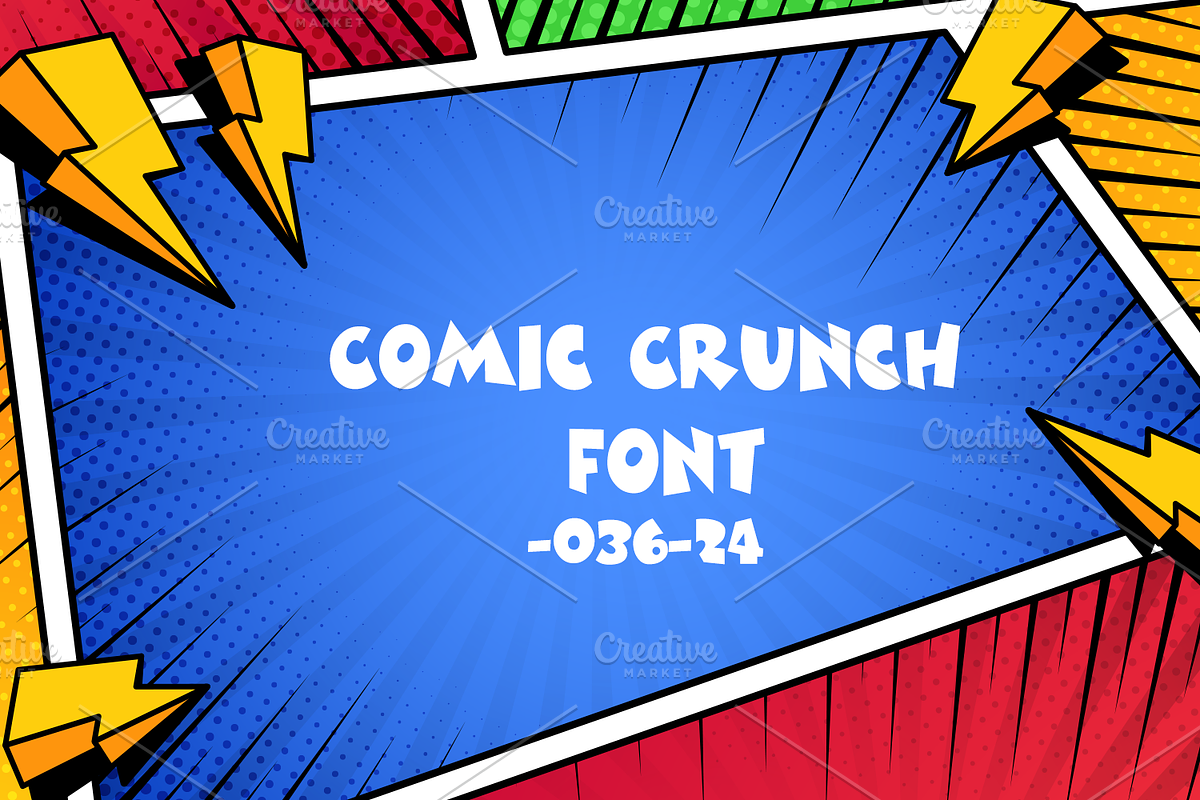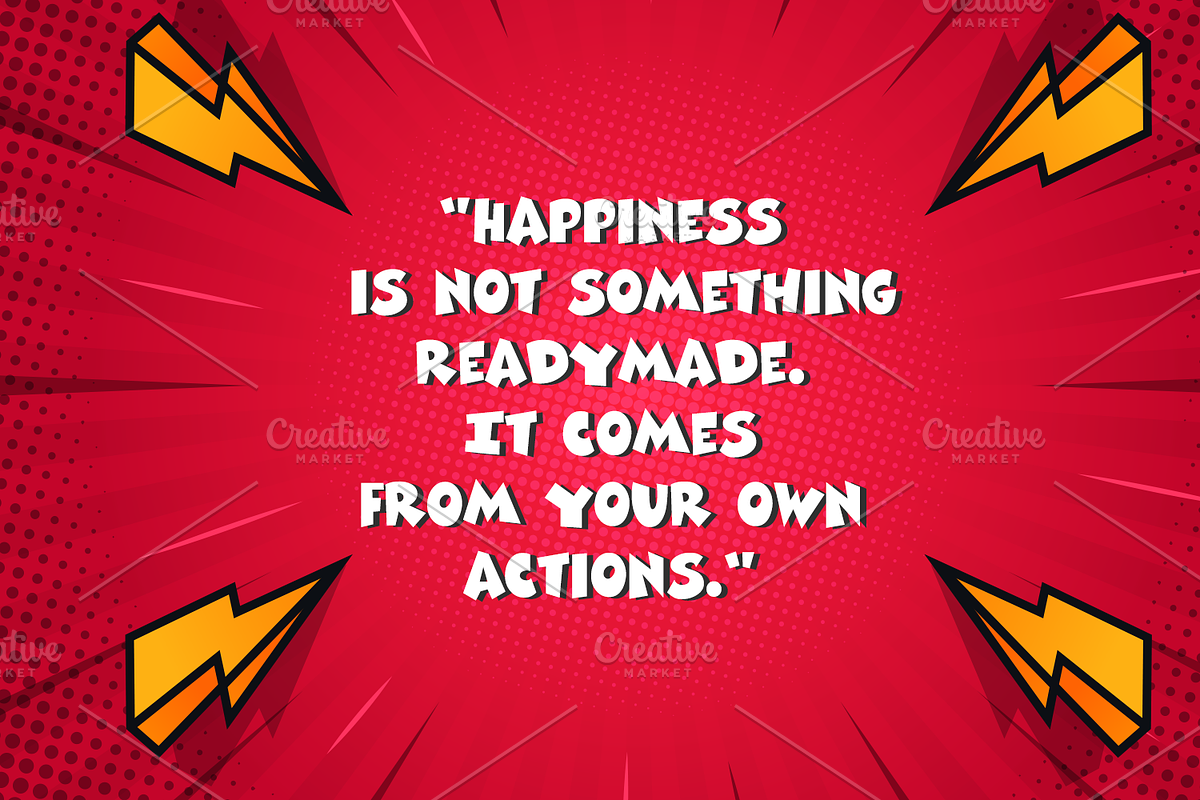
Comic Crunch Font-036-24
Jump into the world of comics with this bold and energetic font! Its thick, rounded lines and lively personality are perfect for capturing the fun, action-packed spirit of cartoon stories and comic art.
Designed to pop off the page, this font brings a dynamic flair to speech bubbles, headlines, and captions, adding excitement to every word. Perfect for anyone looking to add a playful, animated touch to their projects, this font will make your designs feel like they’re straight out of a com